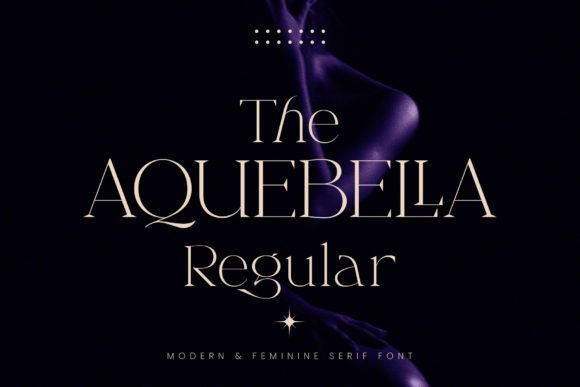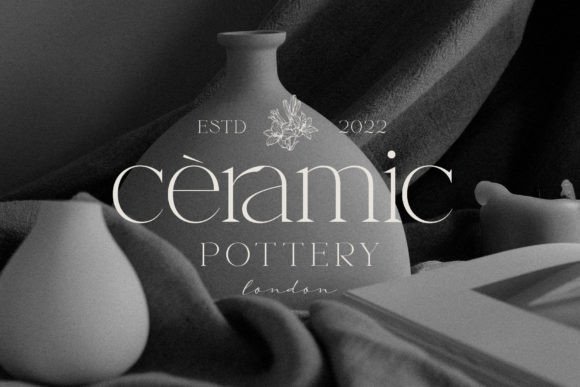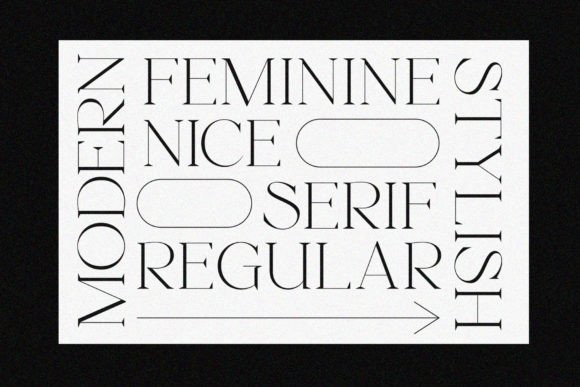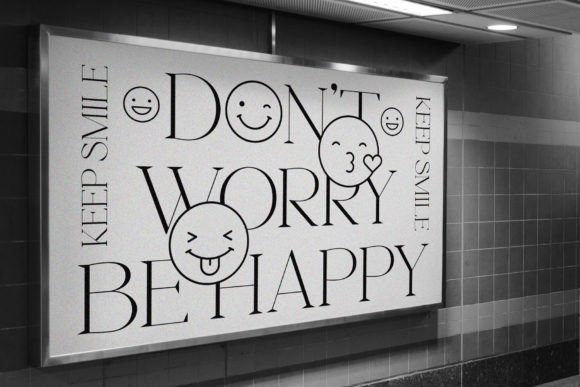
Aquebella Font: Elegant Serif for Modern Logo Design & Branding
About the Aquebella Font
Explore the possibilities with Aquebella Font, a font that offers both beauty and functionality. Aquebella is a stylish and modern serif font. It has an elegant and modern look that can be used for logos, branding, invitations, stationery, wedding designs, social media posts, and much more! This font is PUA encoded which means you can access all glyphs and ligatures with ease!
Aquebella’s elegant, modern serif design excels in headlines, logos, and short-form text like invitations and social media graphics. Its refined character lends itself well to branding projects requiring a touch of sophistication. However, its less-than-optimal x-height makes it unsuitable for extended body text or UI elements where readability is paramount.
Aquebella projects a sophisticated, yet approachable personality. Its refined strokes and subtle details suggest a brand that values quality and style without being overly formal.
Aquebella Font Usage Examples
Aquebella Font Example